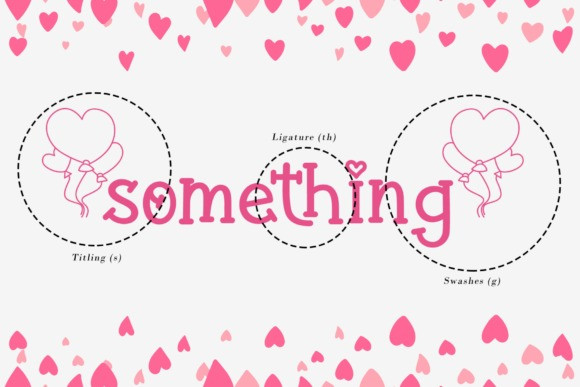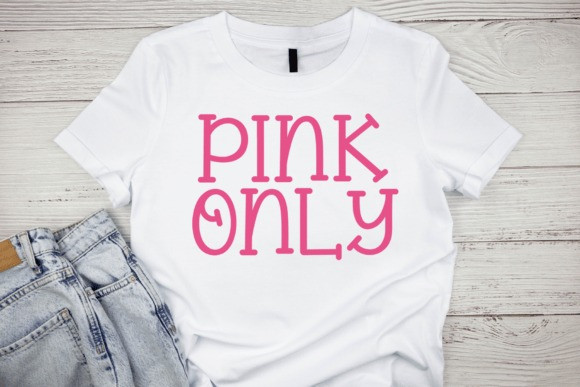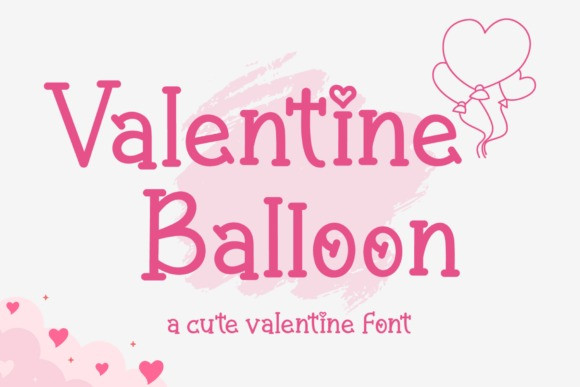
Valentine Balloon Font
Valentine Balloon font, the perfect choice for love-filled creations! From DIY projects to social media posts and lovely merchandise, this font captures the spirit of romance and creativity. Its playful yet elegant design will make every creation stand out. Start spreading the love today!